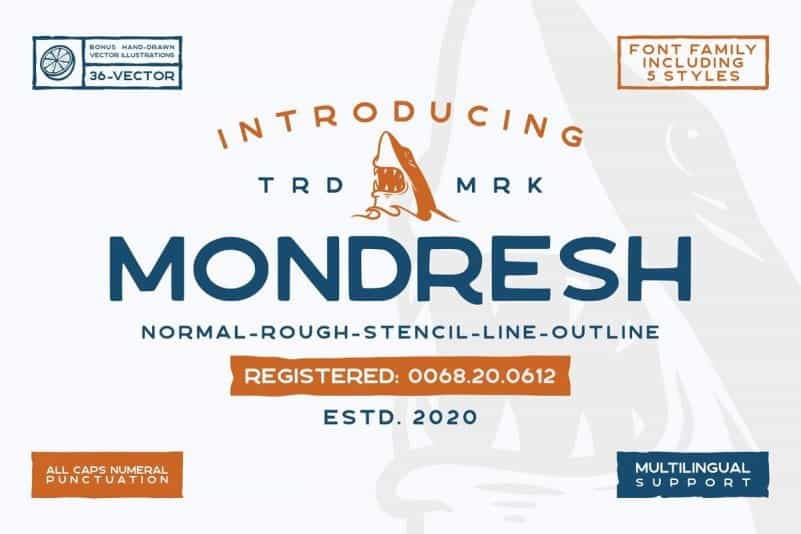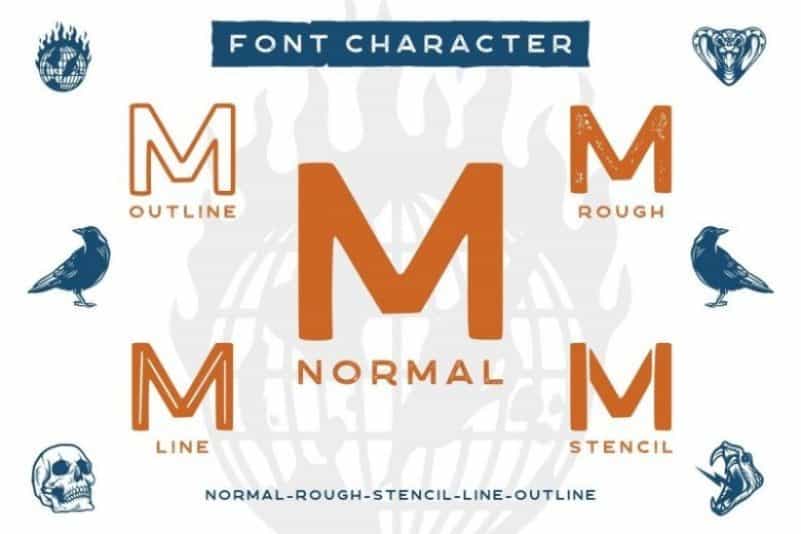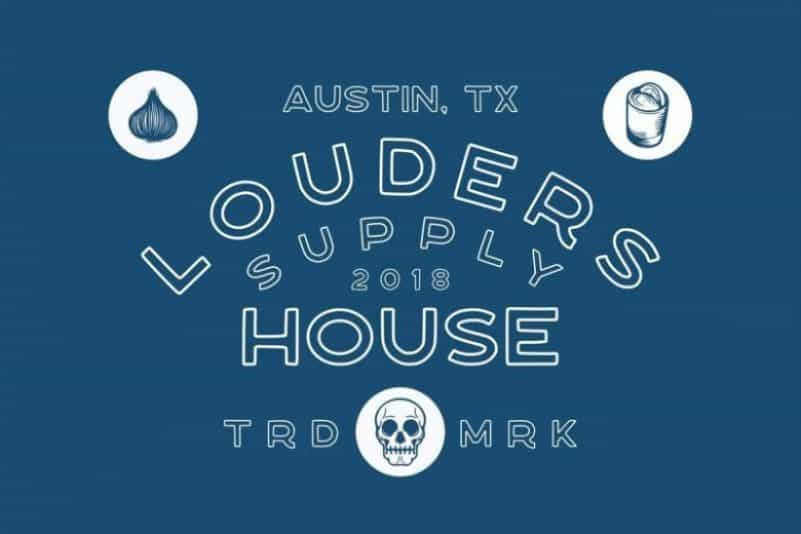
Mondresh is a display sans serif typeface that has been a long time in the creation. A salute to the past, and an ode to the bold. Inspirational by old-fashioned motorcycle advertisements pictures, signs, and other images of the past, instilling the courage of taking on the road ahead.